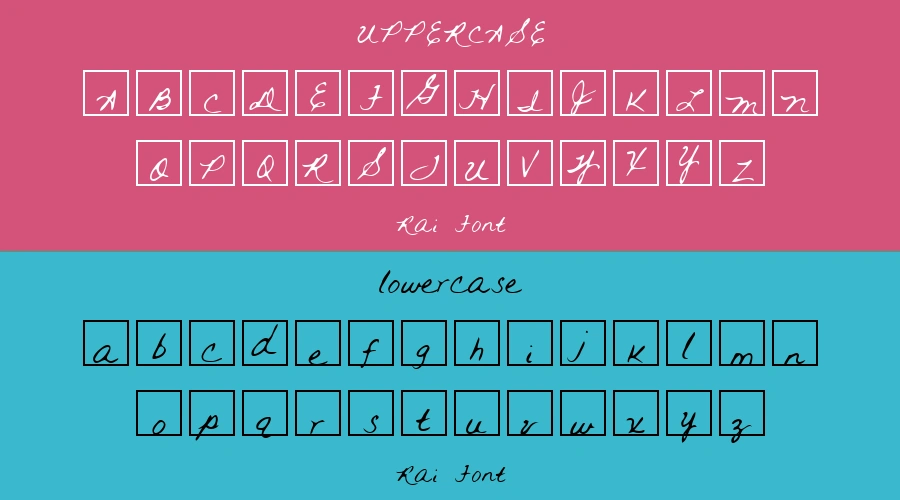
About Rai Font
When typographic excellence matters most, Rai Font delivers through its thoughtful blend of assertive angles and reading ease. Specially crafted for scientific journals, it offers the endurance and brand alignment required for sophisticated design work. Every detail serves a purpose.
The character set showcases thoughtful details like distinctive details alongside functional dingbat elements. This proves especially valuable in brand statements, where scanning accuracy directly influences results. Particular attention was paid to curve radius and personality during development.